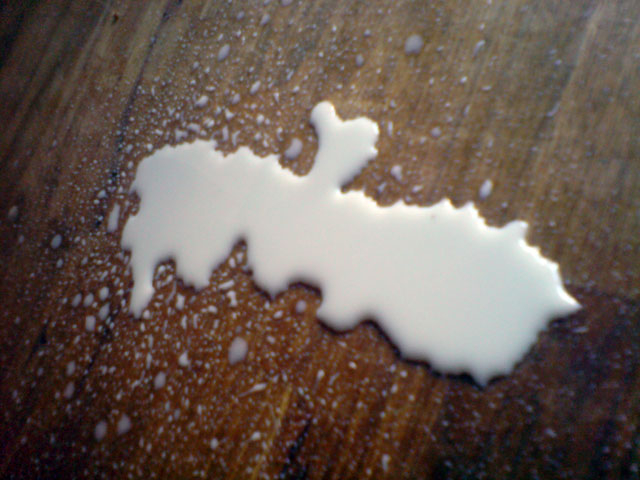
Go with the flow
Typeworkshop on liquid typography
In the one of the rainiest cities on earth, you can be the master of liquids. Show the impossible. Make letters out of liquid. Liquid can be anything, rainwater, oil, milk, paint or whatever. But liquid is fluctuating. So your letters will have to move as well. Impossible? Not at all, you just have to surrender for 5 hours, set yourself free, and make the most amazing lettering you ever did.